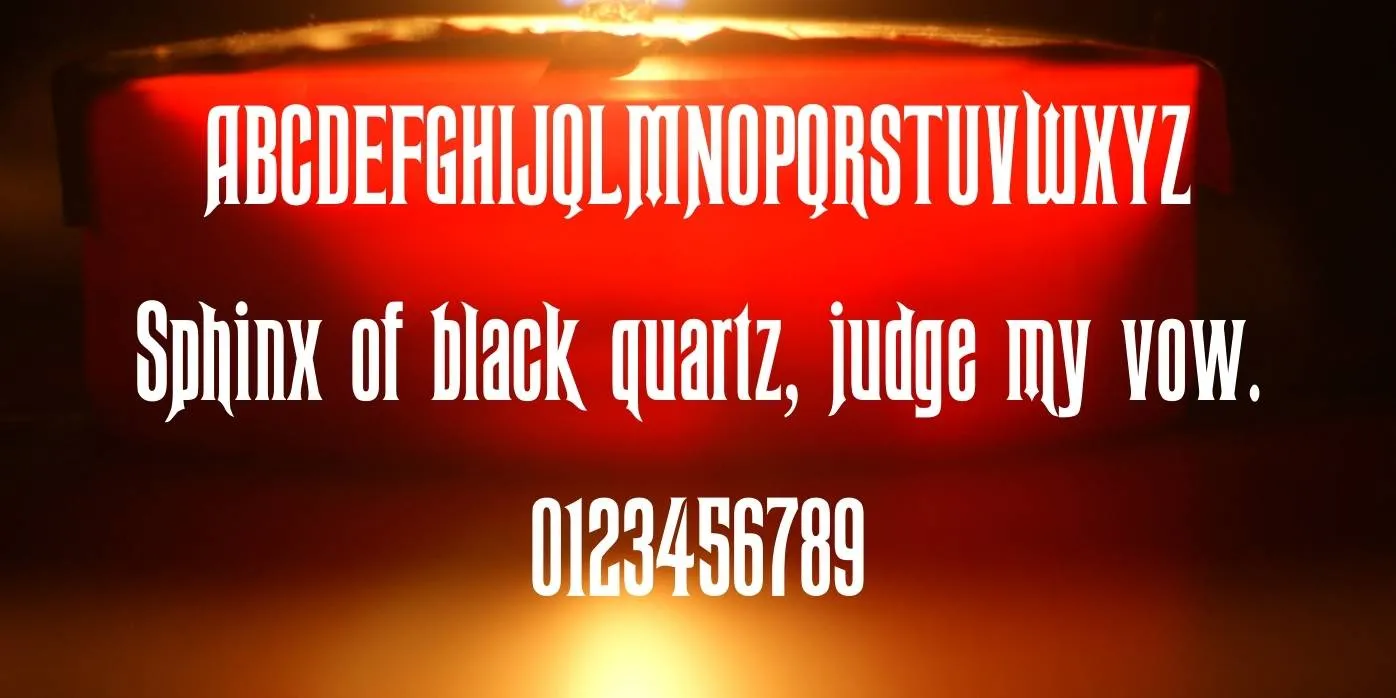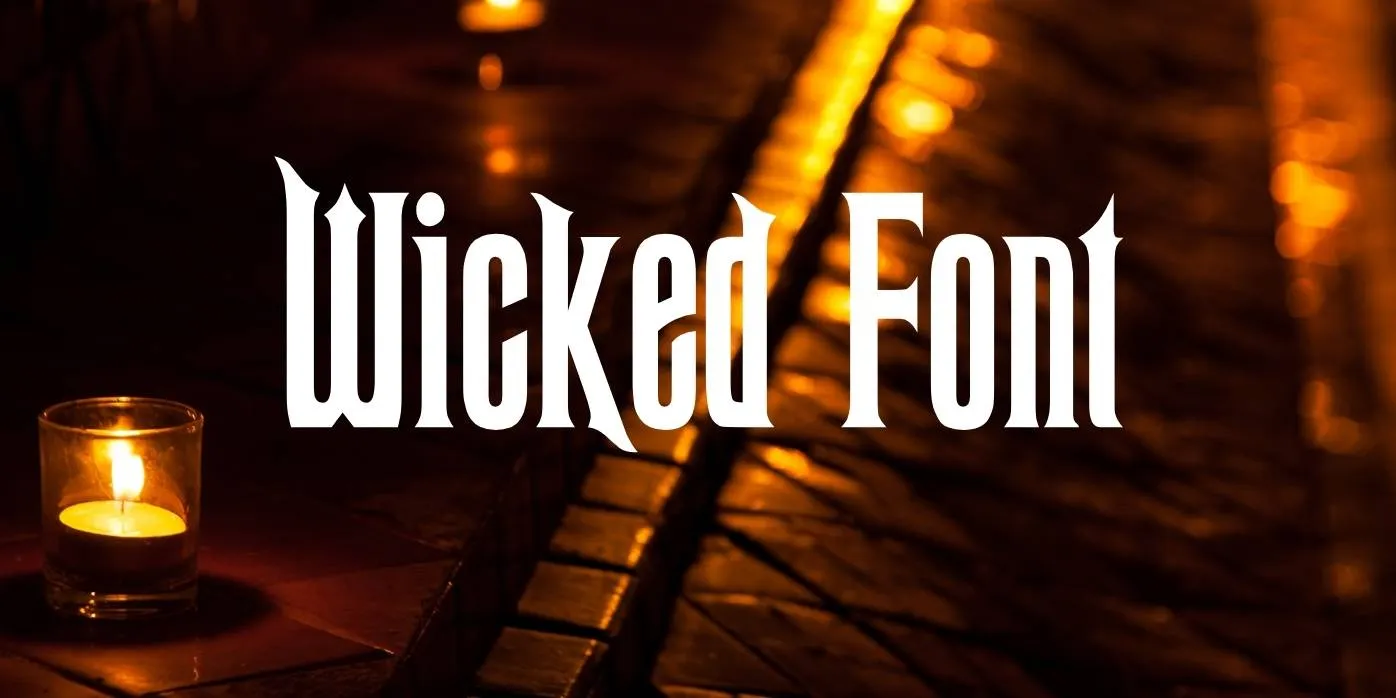
Wicked Font
Today we are consulting on a very famous font that has great fame in the designing industry known as Wicked Font. This stunning font family belongs to the Fancy Typeface. This stylish font was designed by famous designer Emile Byeongsu Kim. This font is available in three different types of styles.
It comes in various types of weights. Some of its common weights are Bold, Thin, and many others. These weights increase its popularity. Due to its Swashes, it is most famous among designers.
This classic font comes in more than 223 Glyphs and a greater number of characters. Some of its important and top list characters are General Punctuations, Icons, Symbols, Numbers, and many others. Because of this reason this font family is most suitable everywhere. It is impressive by the most popular Museo Sans font.  This marvelous typeface is frequently picked out for use in different types of programs like  Microsoft Word, and Adobe Photoshop.